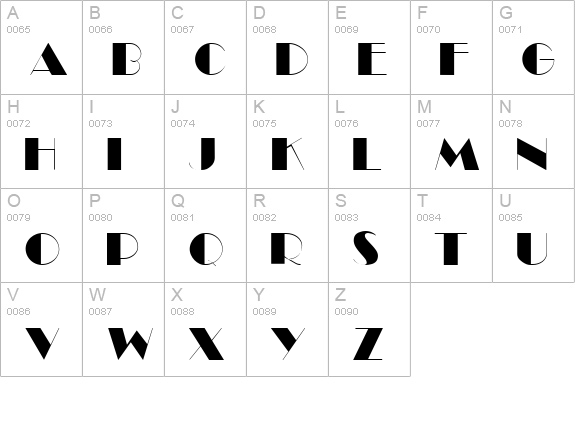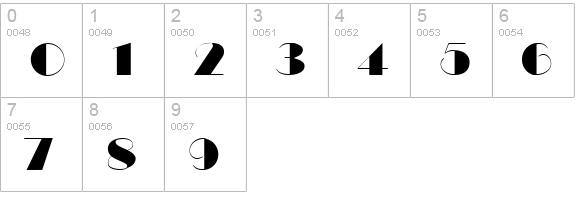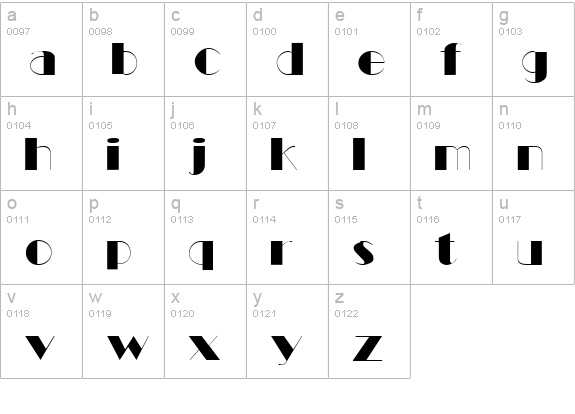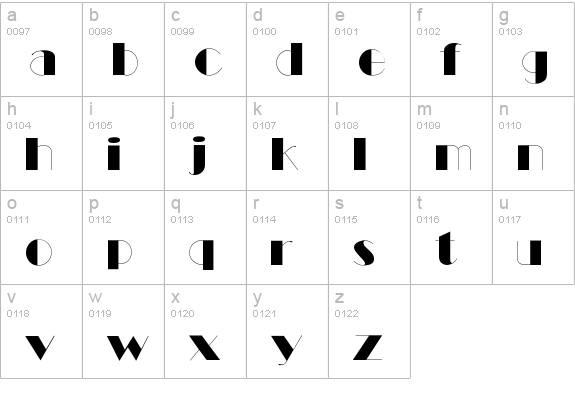
Black Tie Display SSi Font Details
Black Tie Display SSi is a maximum-weight, dramatic variant in the Black typeface family \xE2\x80\x94 well suited to maximum-impact headlines, posters, and packaging.
Black Tie Display SSi font exudes elegance and sophistication with its sleek, modern design. Perfect for adding a touch of class to any project, this font features sharp, clean lines that make a bold statement. Whether you're creating invitations, posters, or branding materials, Black Tie Display SSi font is sure to elevate your design to the next level. The best part? This stunning font is completely free for personal and commercial use. You can easily download Black Tie Display SSi font at FontsMarket.com and start using it in your projects today. Don't miss out on this amazing opportunity to enhance your creations with a touch of luxury and style.